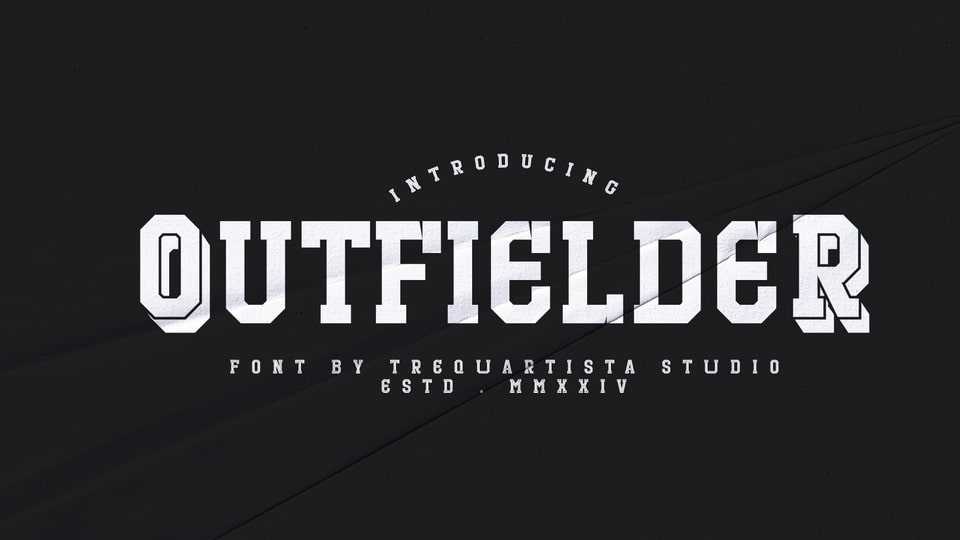
Download Outfielder font, a sport typeface inspired baseball and rugby lettering. This typeface has a clean and athletic look, bold, vibrant style.
Designer: Trequartista Studio